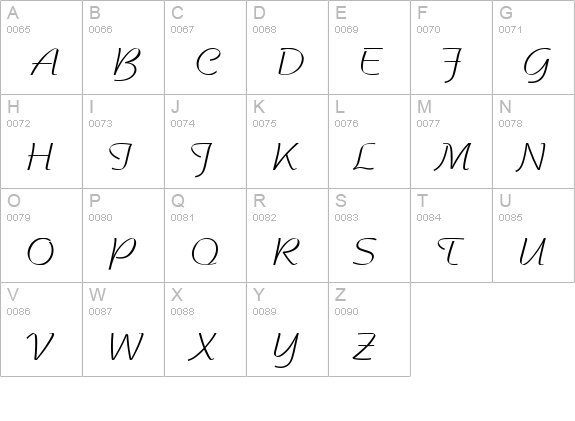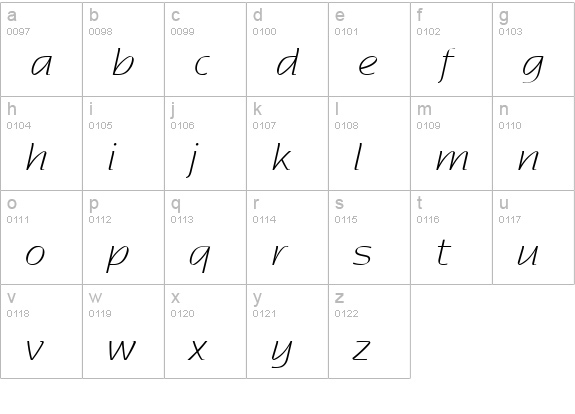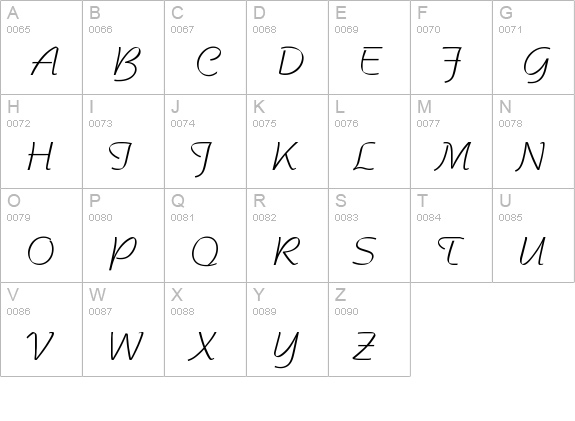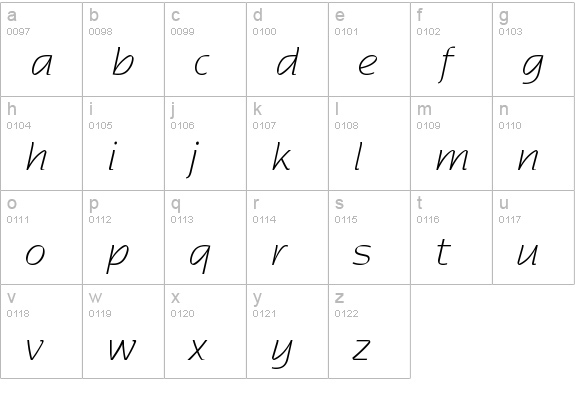
Sentimental Script Light SSi Font Details
Sentimental Script Light SSi is a refined, elegant variant in the Sentimental typeface family \xE2\x80\x94 well suited to elegant body text, refined sub-headings, and luxury branding.
Sentimental Script Light SSi font is a beautifully designed typeface that exudes elegance and sophistication. With its delicate strokes and graceful curves, this font captures the essence of sentimental storytelling and heartfelt emotions. The Sentimental Script Light SSi font is perfect for adding a touch of romance and nostalgia to any project. Whether you're designing wedding invitations, love letters, or heartfelt quotes, this font will bring an air of sentimentality to your words. This font is not only visually stunning but also incredibly versatile. It can be used for both formal and informal designs, making it suitable for a wide range of creative projects. From branding materials to social media graphics, the Sentimental Script Light SSi font will add a touch of elegance to any design. One of the best things about the Sentimental Script Light SSi font is that it is freely available to download at FontsMarket.com. This means that you can add this beautiful font to your collection without spending a dime. Whether you're a professional designer or a design enthusiast, having access to high-quality fonts like Sentimental Script Light SSi can take your projects to the next level. So, if you're looking to add a touch of sentimental charm to your designs, look no further than the Sentimental Script Light SSi font. Download it for free at FontsMarket.com and let your creativity soar.